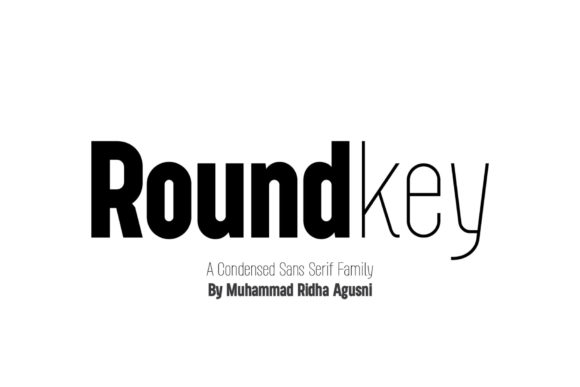
Step into the realm of captivating typography with Roundkey Font, a bold and assertive sans serif font poised to ignite your creative passions. Specially crafted by the visionary minds at 38.lineart, Roundkey is more than just a font; it's a gateway to a world of boundless expression.
With its robust and confident strokes, Roundkey commands attention, demanding to be seen and heard. Its unwavering structure exudes strength and stability, while its playful curves add a touch of whimsy and charm. This striking duality makes Roundkey an ideal choice for a diverse range of projects, from bold headlines that grab attention to elegant body text that captivates readers.
Roundkey's versatility extends beyond its visual appeal, seamlessly adapting to various platforms and applications. Its clean and crisp strokes ensure flawless rendering, whether you're designing for print, web, or digital displays. This font's adaptability makes it a valuable asset in your creative arsenal, allowing you to effortlessly switch between projects without compromising quality.
Roundkey's true magic lies in its ability to amplify your creations. This font has the uncanny power to elevate even the simplest of designs, transforming them into captivating masterpieces. Its bold presence adds a touch of sophistication to logos and branding, while its playful charm enlivens social media posts and marketing materials. With Roundkey, you have the power to turn ordinary words into extraordinary expressions that resonate with your audience.
Whether you're a seasoned designer, a budding entrepreneur, or simply someone looking to add a spark of creativity to their life, Roundkey Font is your perfect companion. Its user-friendly nature welcomes both novices and experts alike, making it accessible to anyone who dares to dream big.